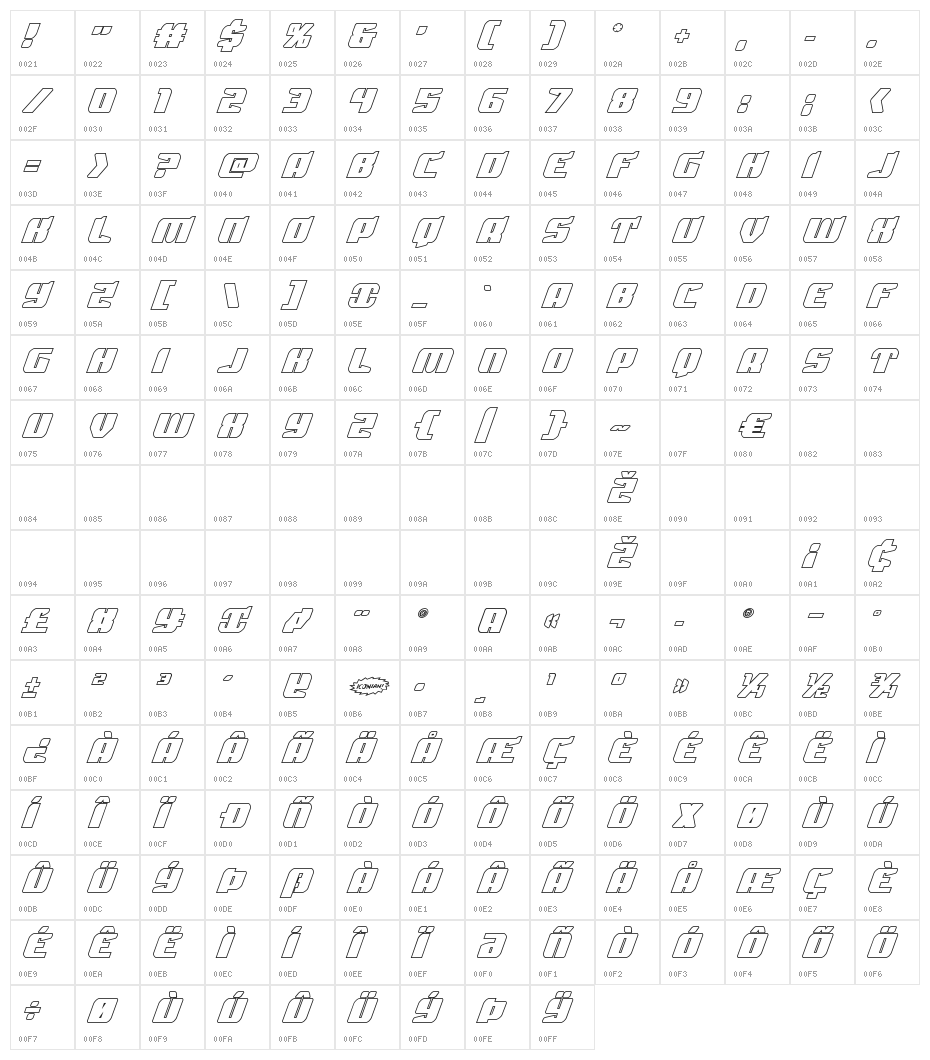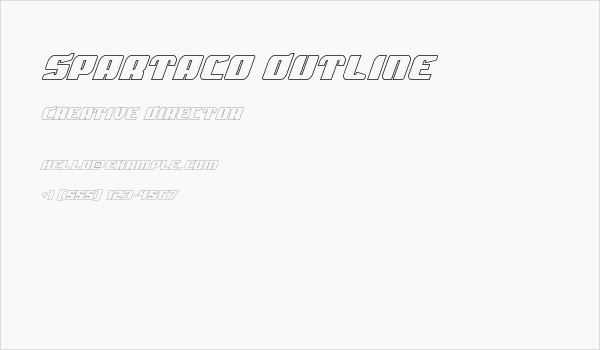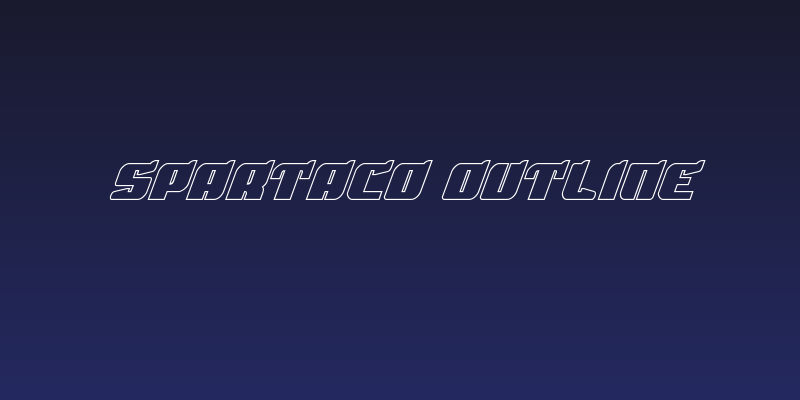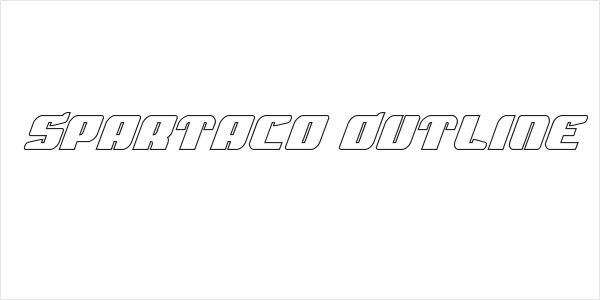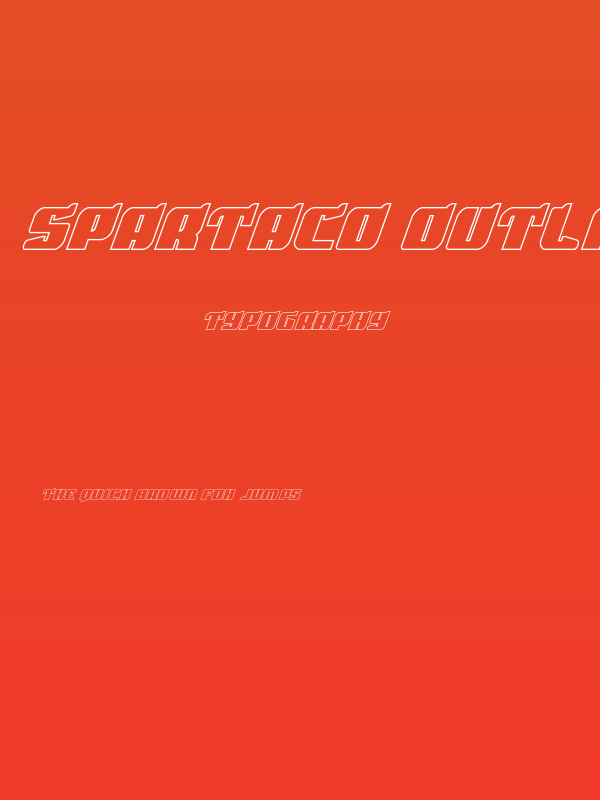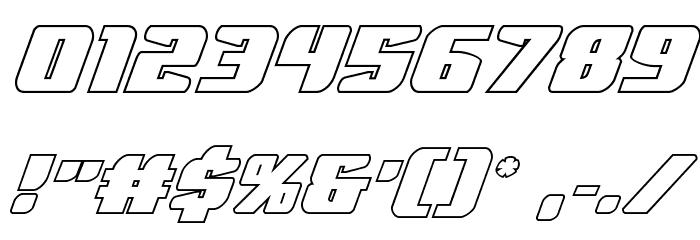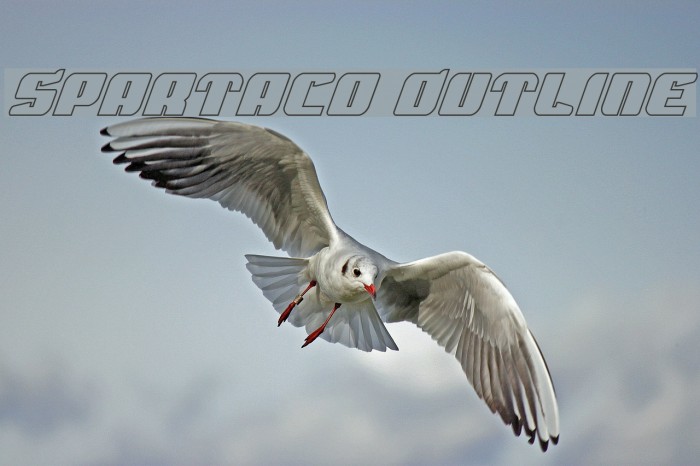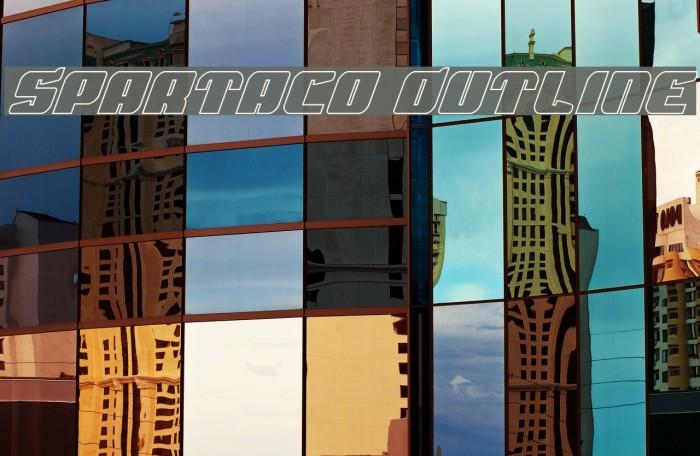
Spartaco Outline Font
Spartaco Outline Description
This font features a bold, geometric outline style that gives it a modern and dynamic appearance. The characters are angular with sharp edges, creating a sense of movement and energy. The uppercase and lowercase letters maintain a consistent design, with the lowercase being slightly smaller in scale. The numbers and special characters follow the same stylistic approach, ensuring uniformity across all glyphs. The outline nature of the font allows for creative use of color and background, making it versatile for various design applications. Its boldness and unique style make it stand out, ideal for projects that require a strong visual impact.
| Proposed Projects | Ideal for branding, posters, headlines, and any project needing a modern, impactful look. |
| Author | Fonts by Casady & Greene |